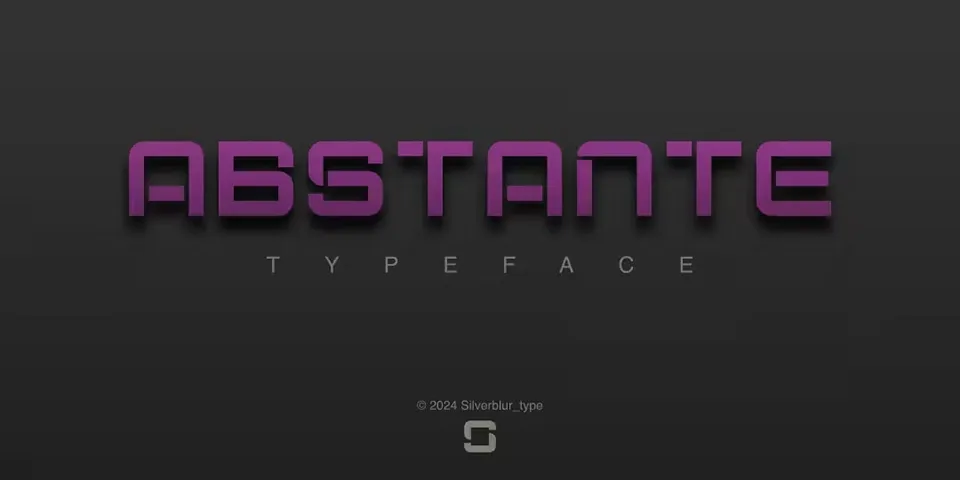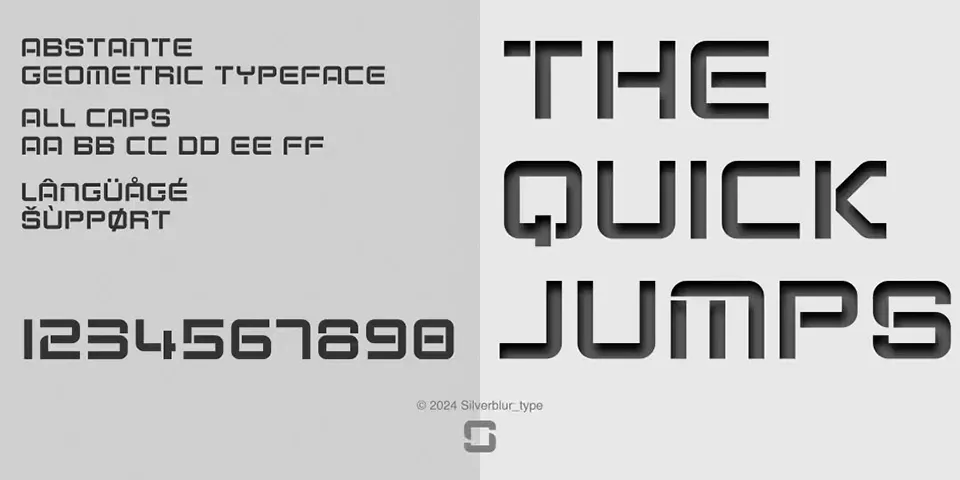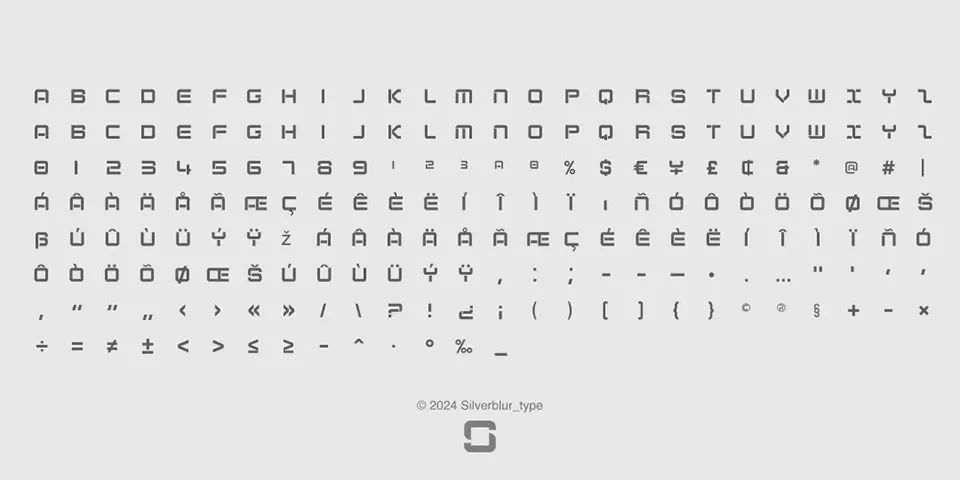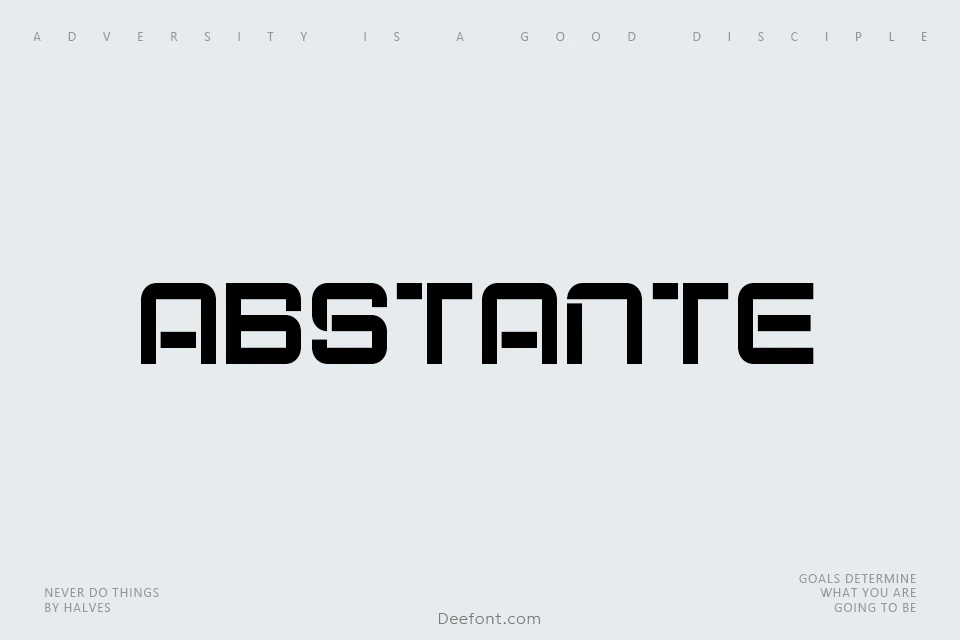
Abstante Font
Abstante Font is a minimalist geometric typeface designed using a few geometric shapes with constant thickness. Its strong and sharp style makes it ideal for graphic projects, logos, branding, and packaging, offering a modern and original touch to your creative work.